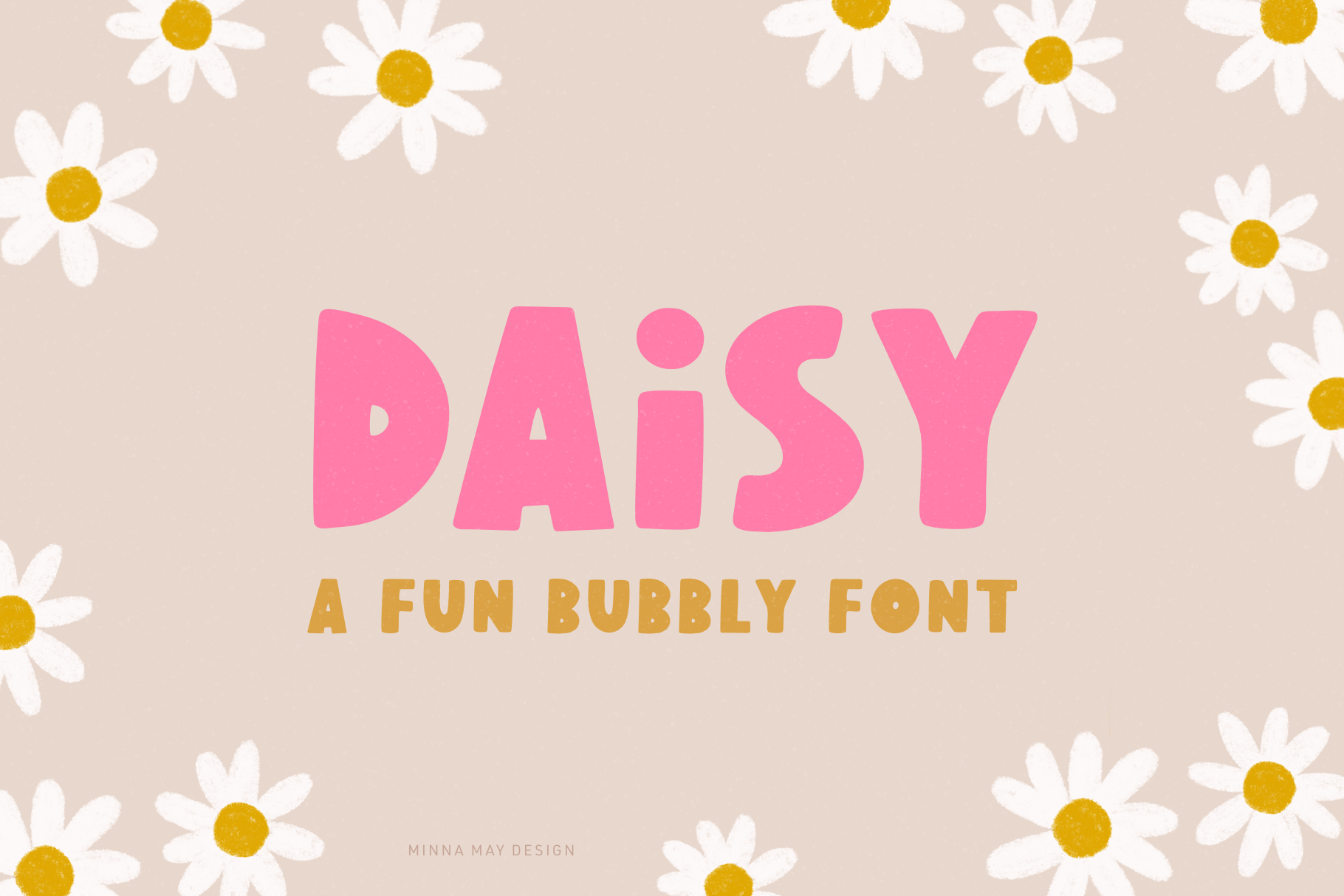
Daisy - Fun Bubbly Display Font
DAISY - a super fun and playful hand-lettered bold typeface. Use for logos, quotes, invitations, blog posts, business cards, presentations and more! This font is all caps and includes numbers and punctuation.